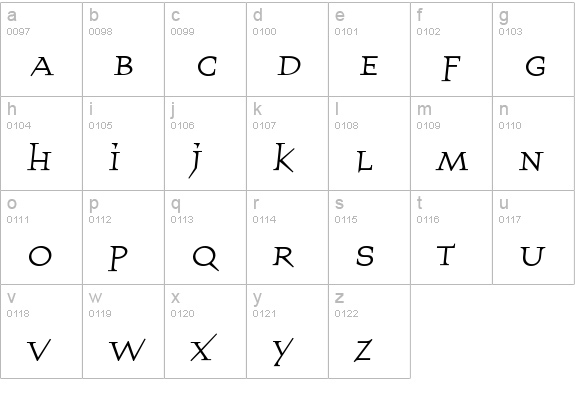
QuartetFractions Font Details
Introducing QuartetFractions, a captivating font that effortlessly combines elegance and versatility. Crafted with meticulous attention to detail, this typeface is perfect for adding a touch of sophistication to any project. QuartetFractions features a harmonious balance between modern and classic design elements, making it suitable for a wide range of applications. Whether you're designing a logo, creating a stunning website, or enhancing your print materials, this font will elevate your work to new levels of excellence. One of the standout features of QuartetFractions is its exceptional use of fractions. With beautifully crafted numerator and denominator glyphs, this font seamlessly integrates fractions into your text, creating a polished and professional look. Whether you're working on a recipe, financial report, or mathematical equation, QuartetFractions will effortlessly handle all your fraction needs. What sets QuartetFractions apart from other fonts is its availability as a free download. Yes, you heard that right! This remarkable font can be freely obtained at FontsMarket.com, your go-to source for high-quality fonts. With just a few clicks, you can add QuartetFractions to your font library, allowing you to use it in any personal or commercial project without any limitations. Don't miss out on this incredible opportunity to enhance your designs with QuartetFractions. Download it today and experience the beauty and versatility of this outstanding font. Elevate your typography game and captivate your audience with QuartetFractions - the free font that sets the standard for elegance and functionality.